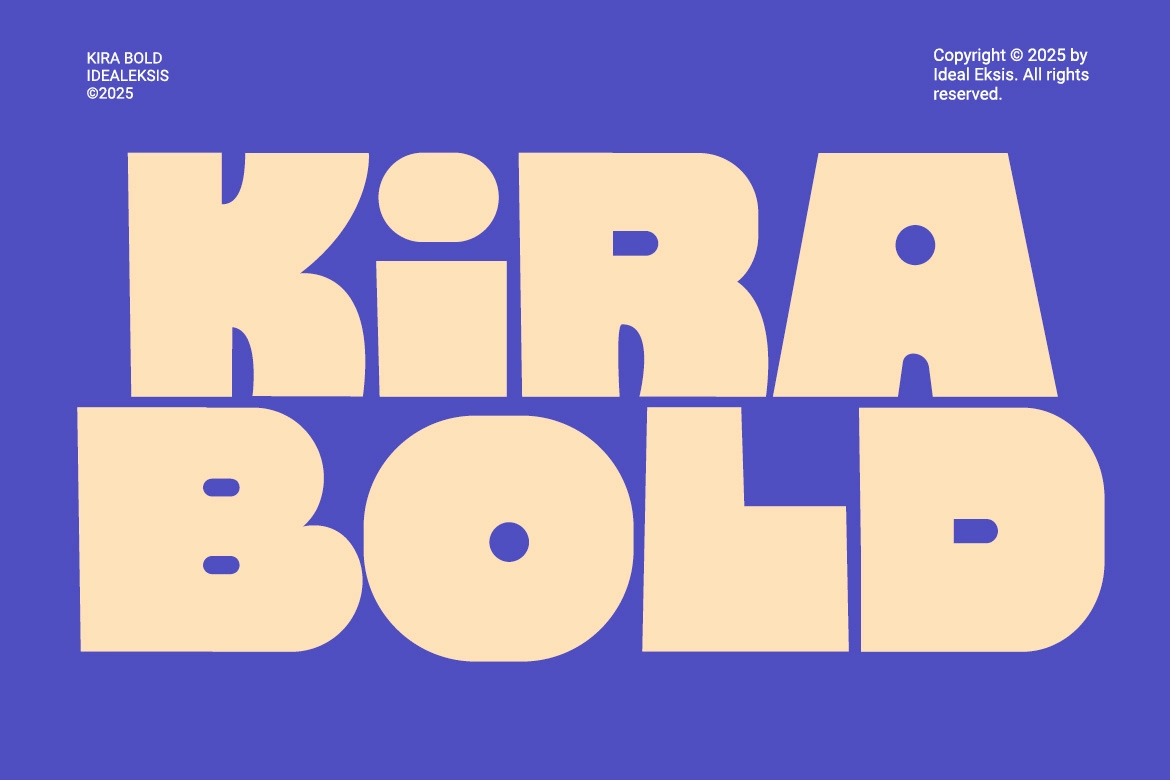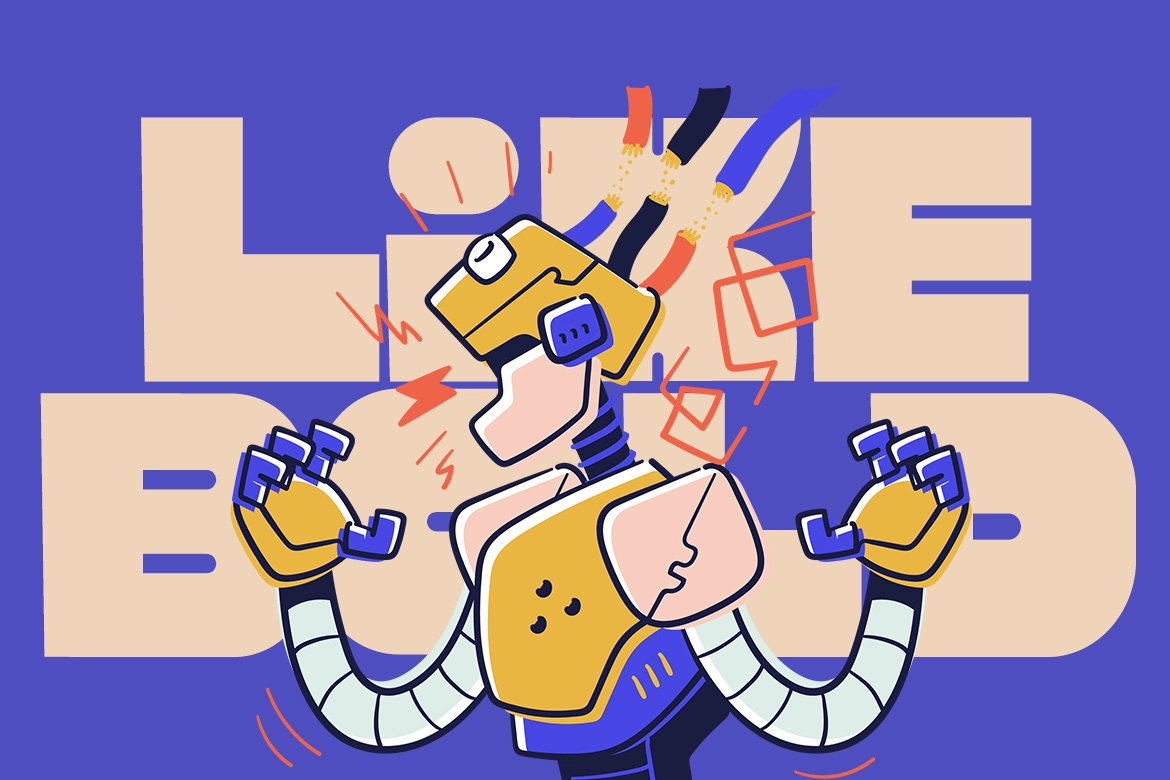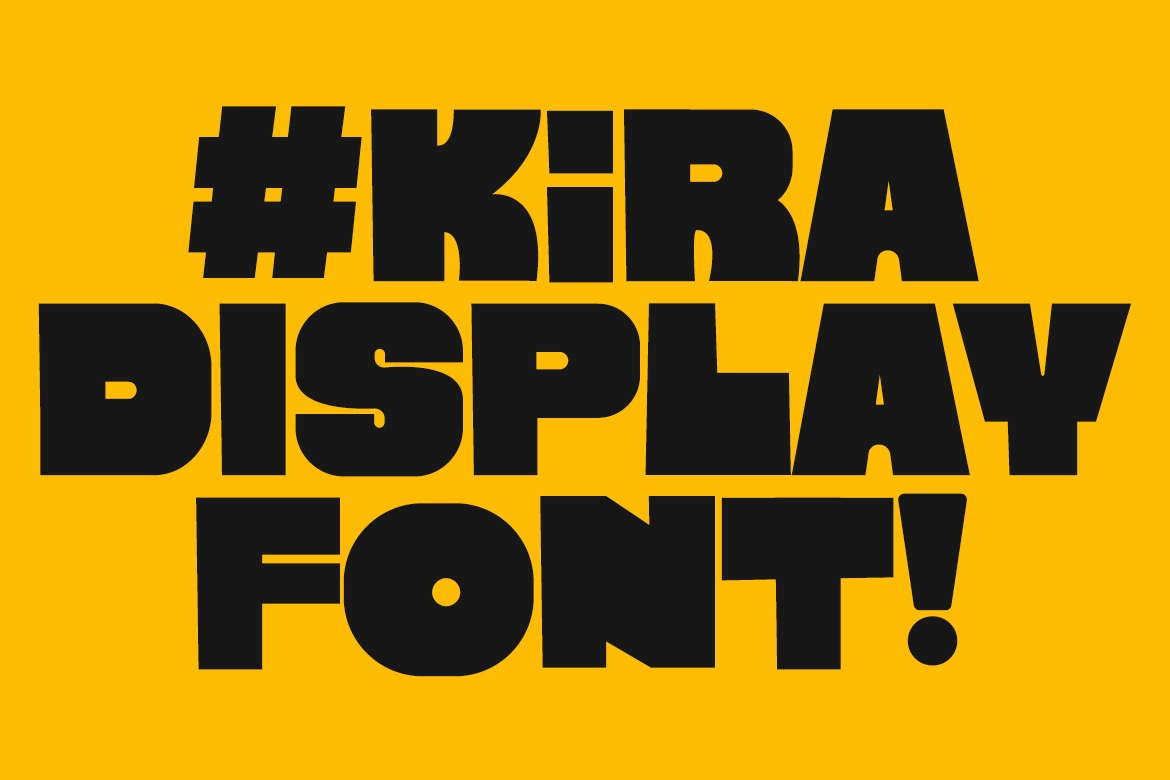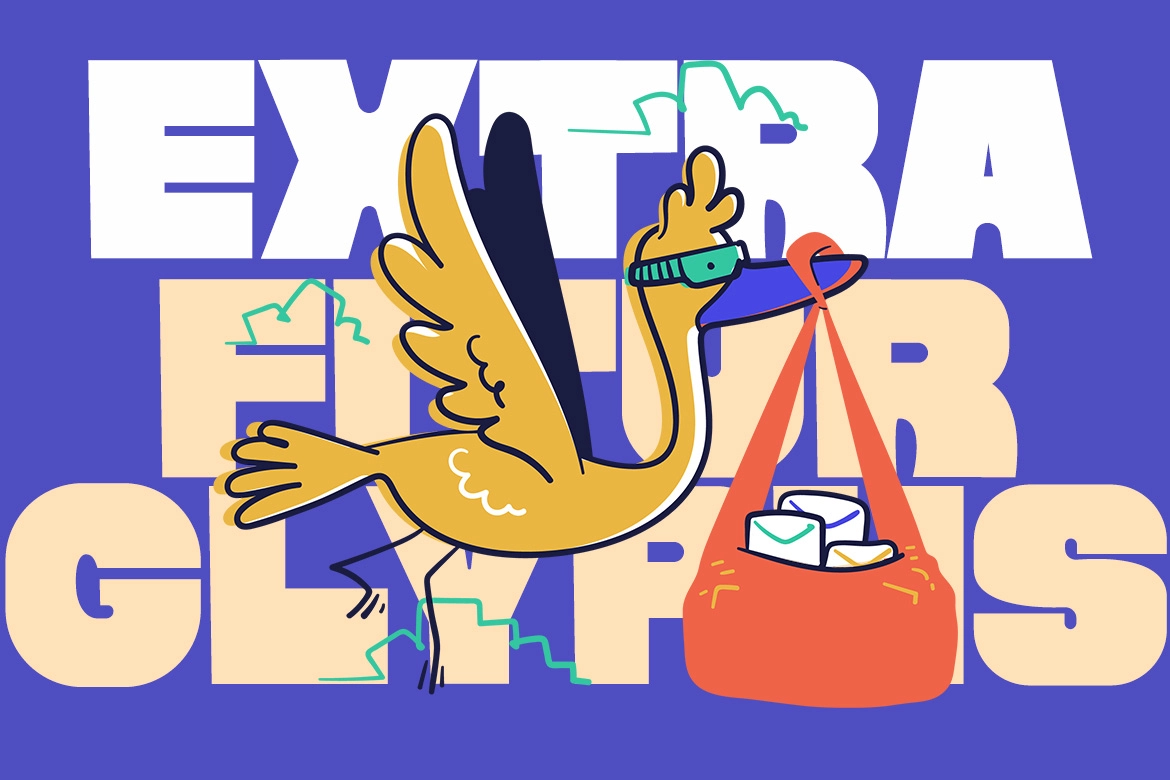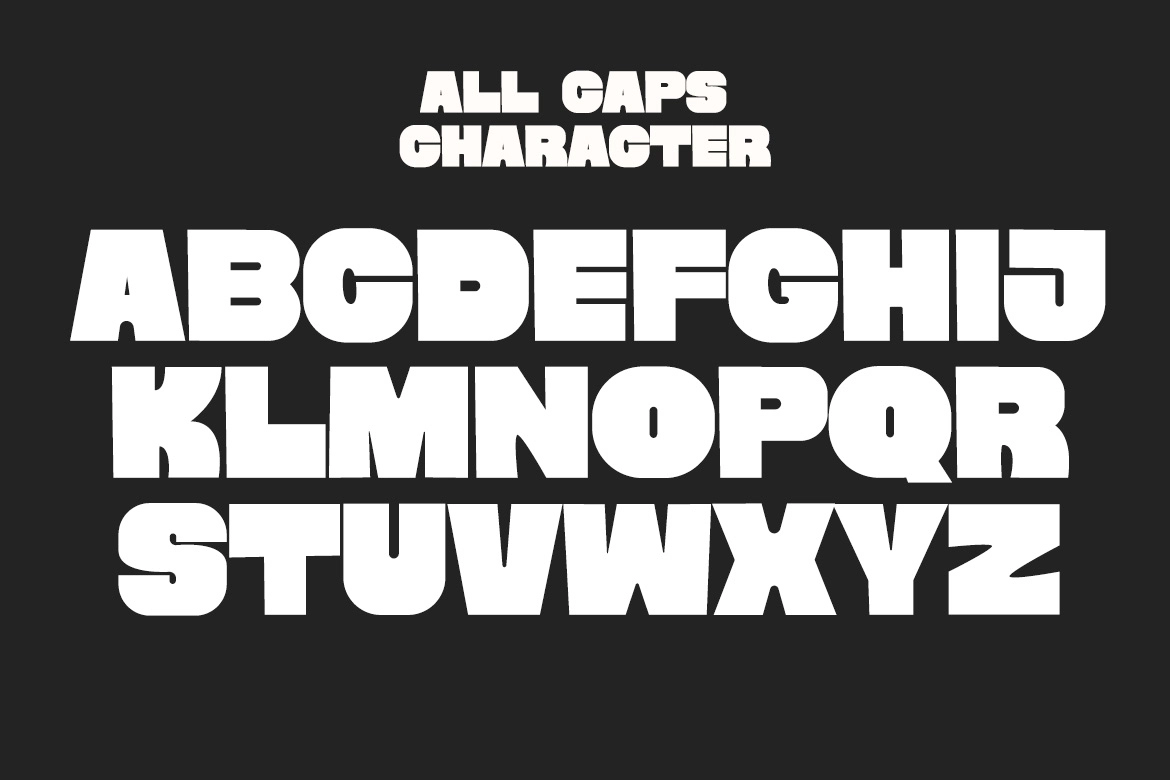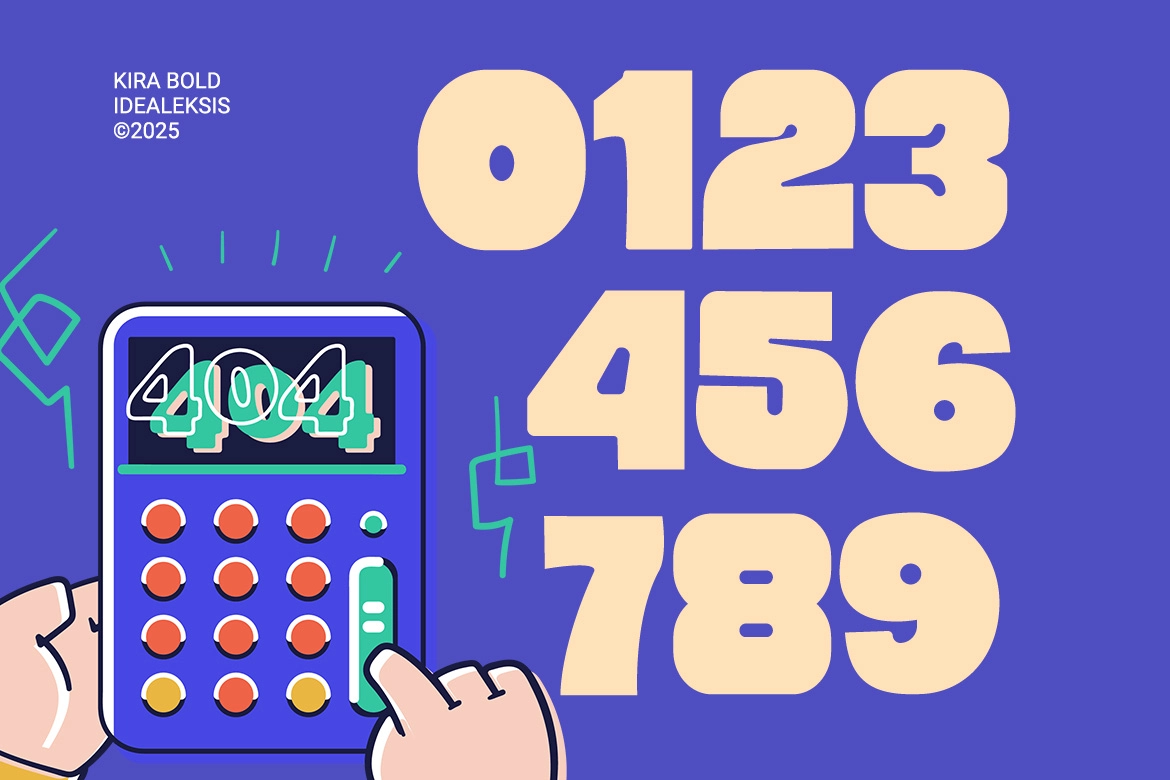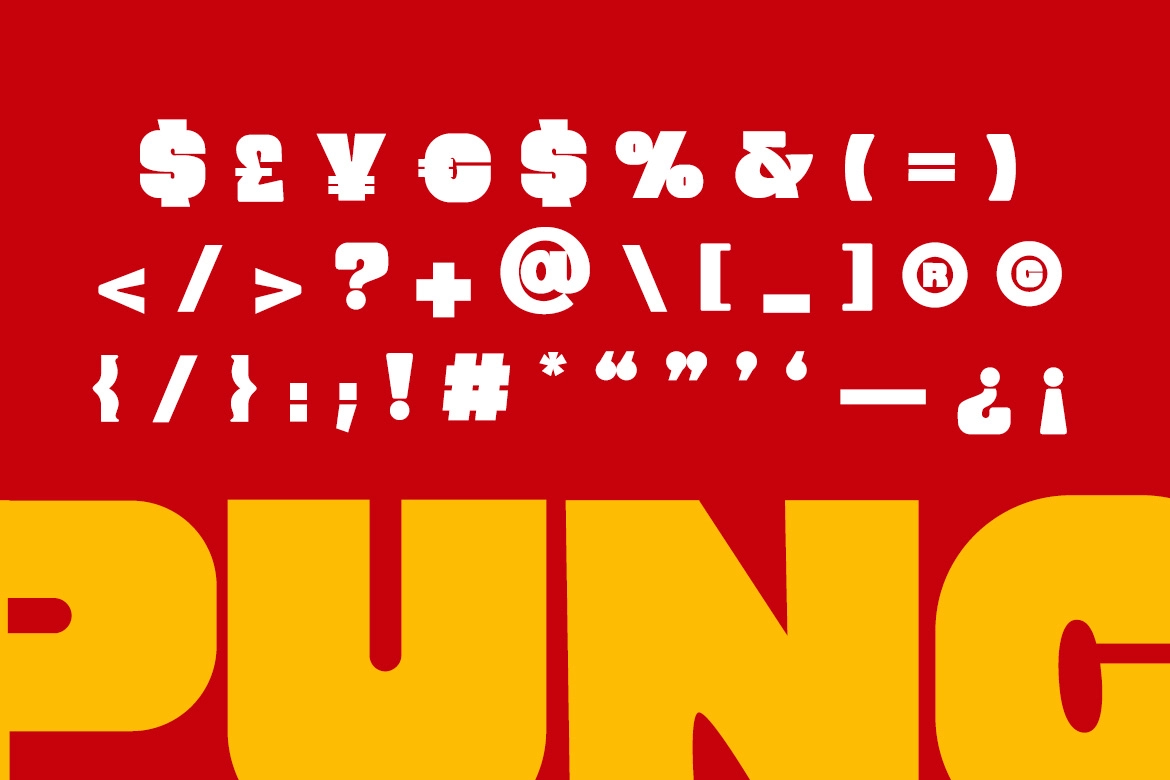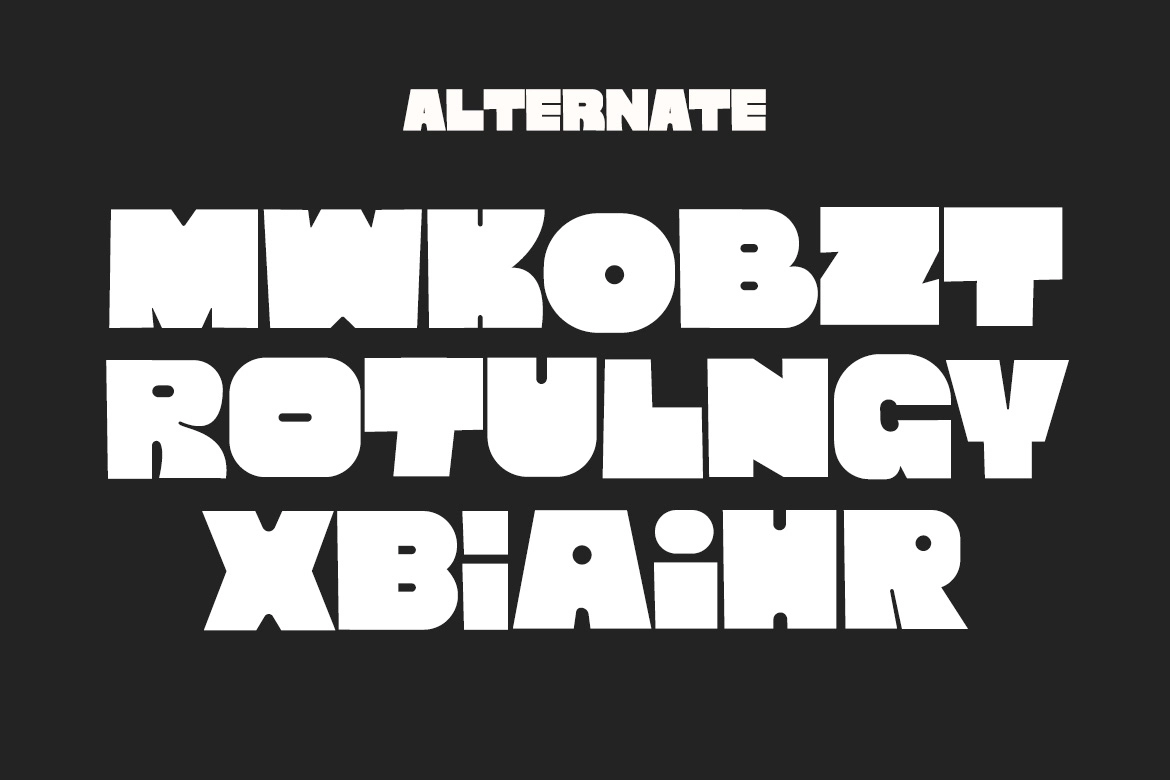
Kira - Extra Bold Display Font
Kira Bold
Kira - Extra Bold Display Font is a bold, lively, and retro-inspired typeface crafted to make your visuals stand out. Its thick, rounded shapes and smooth geometric flow give every word a playful yet confident presence, perfect for designs that need personality and impact.
With its solid structure and soft curves, Kira blends modern aesthetics with a nostalgic charm, making it ideal for posters, branding, packaging, merchandise, children’s illustrations, and creative headlines.
This extra-bold display font ensures excellent readability while adding a distinct, memorable touch to any project — a perfect choice for designers who want to combine strength, warmth, and vintage-inspired style.
Feature:
- Uppercase (All Caps)
- Alternate
- Punctuation